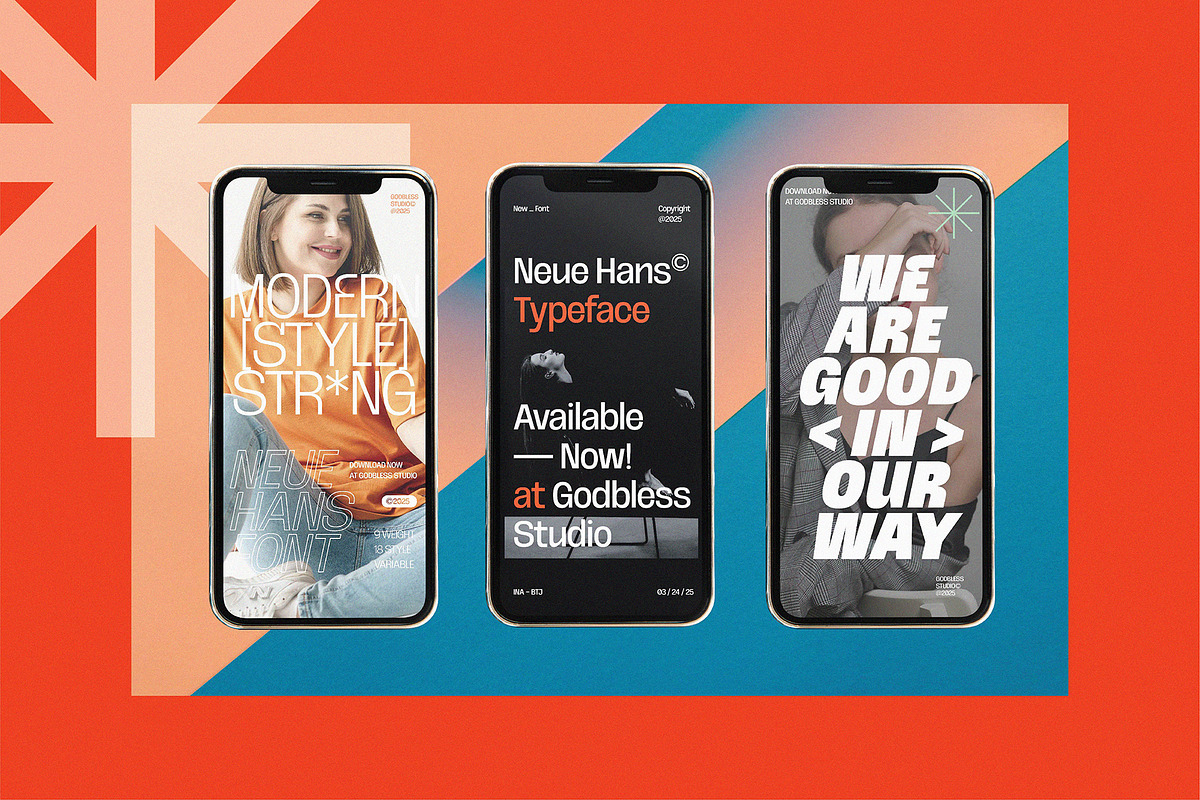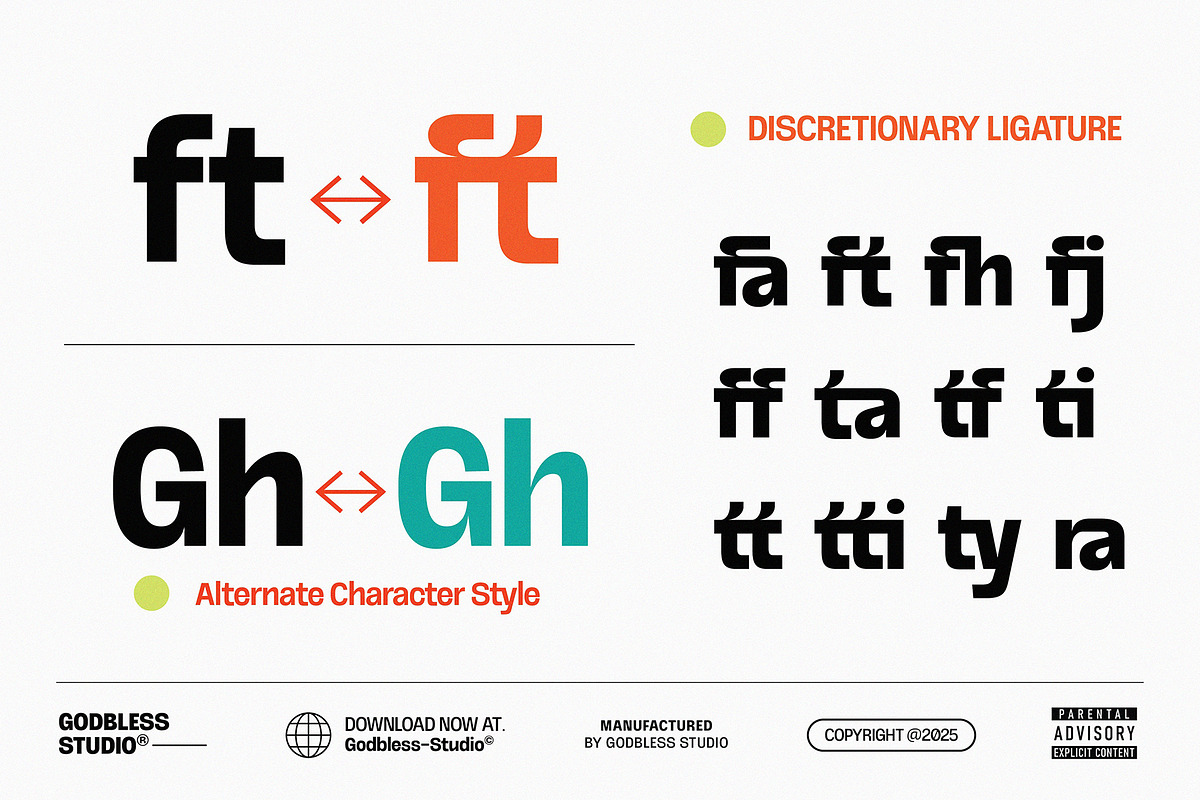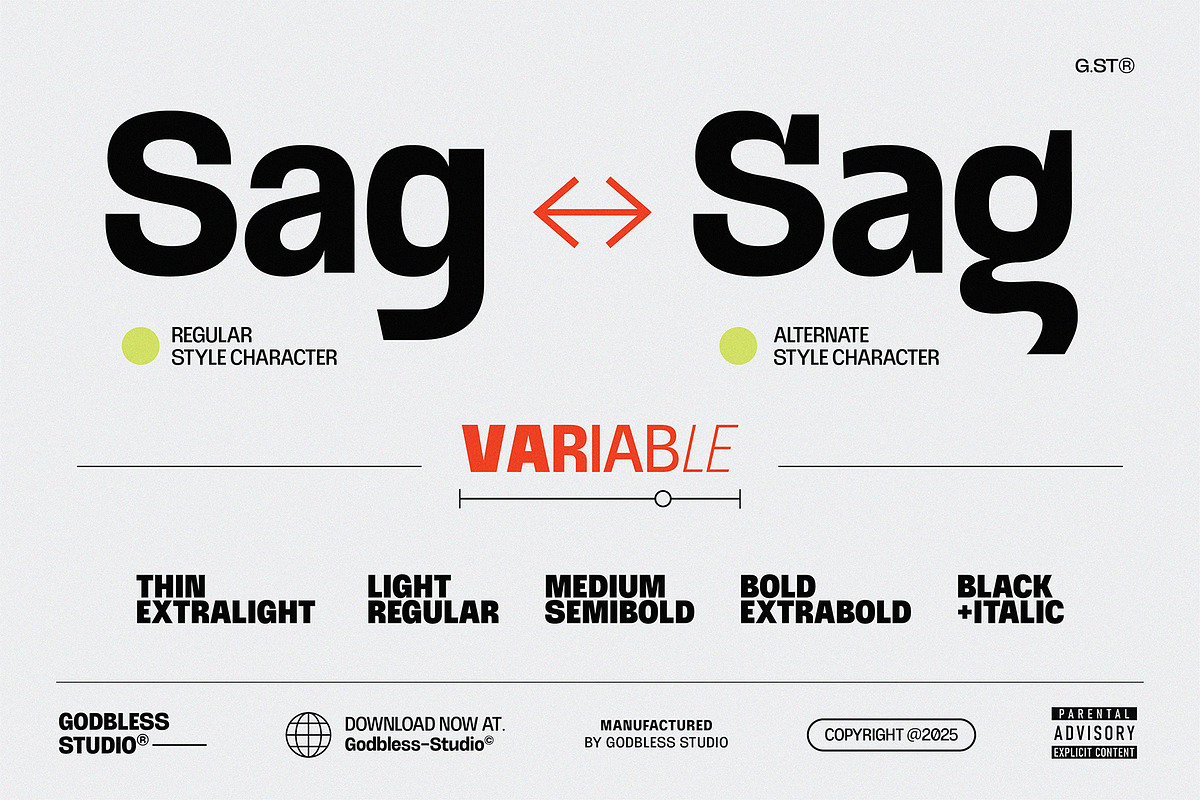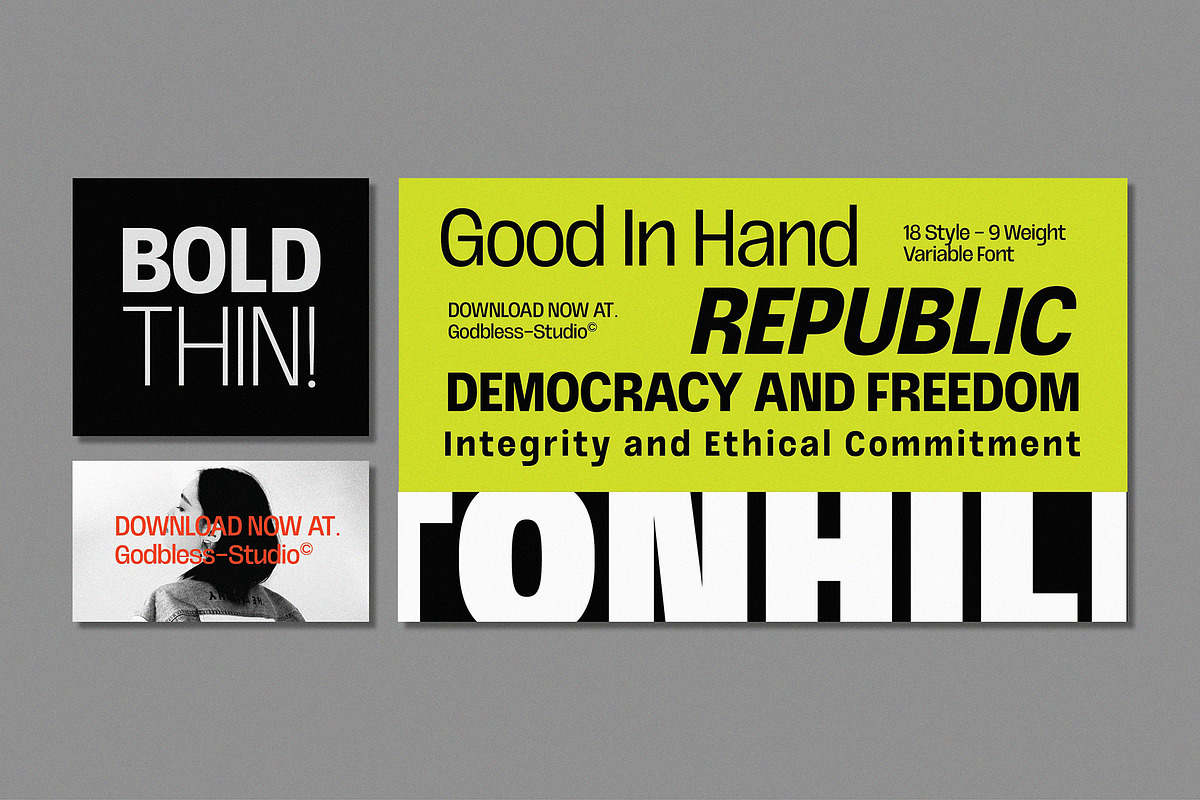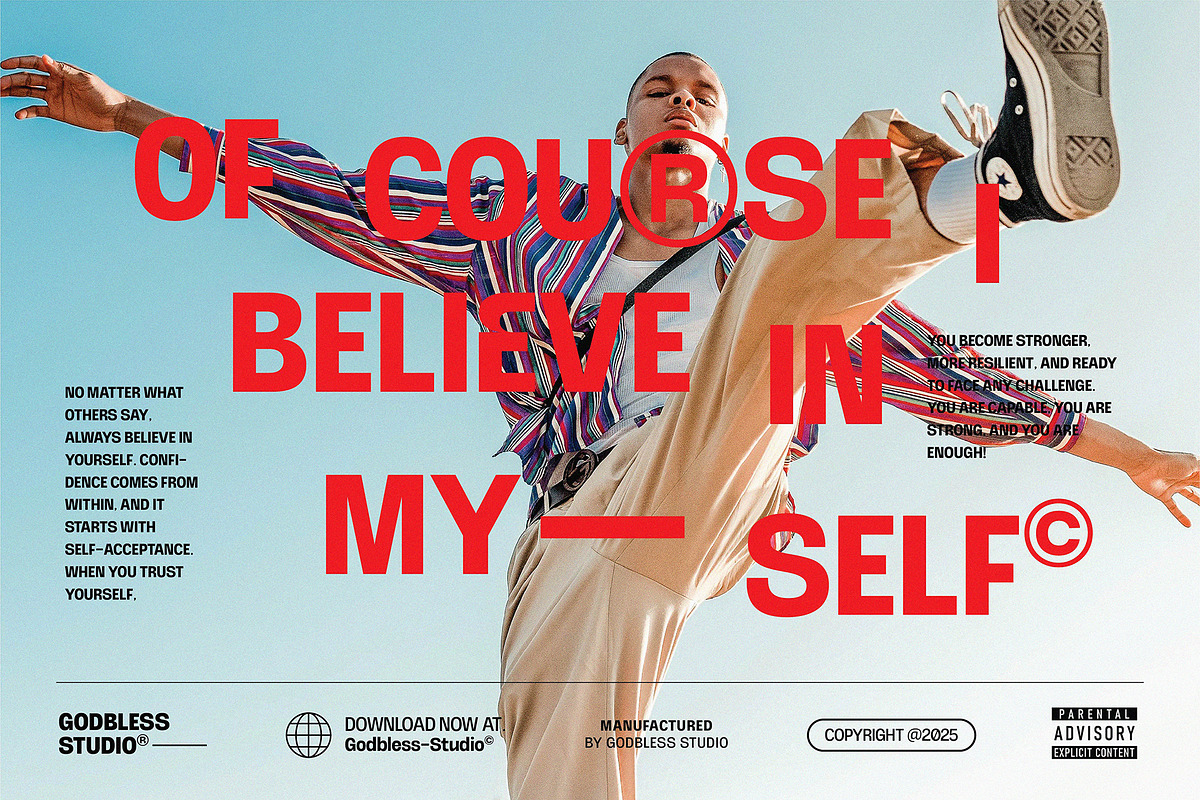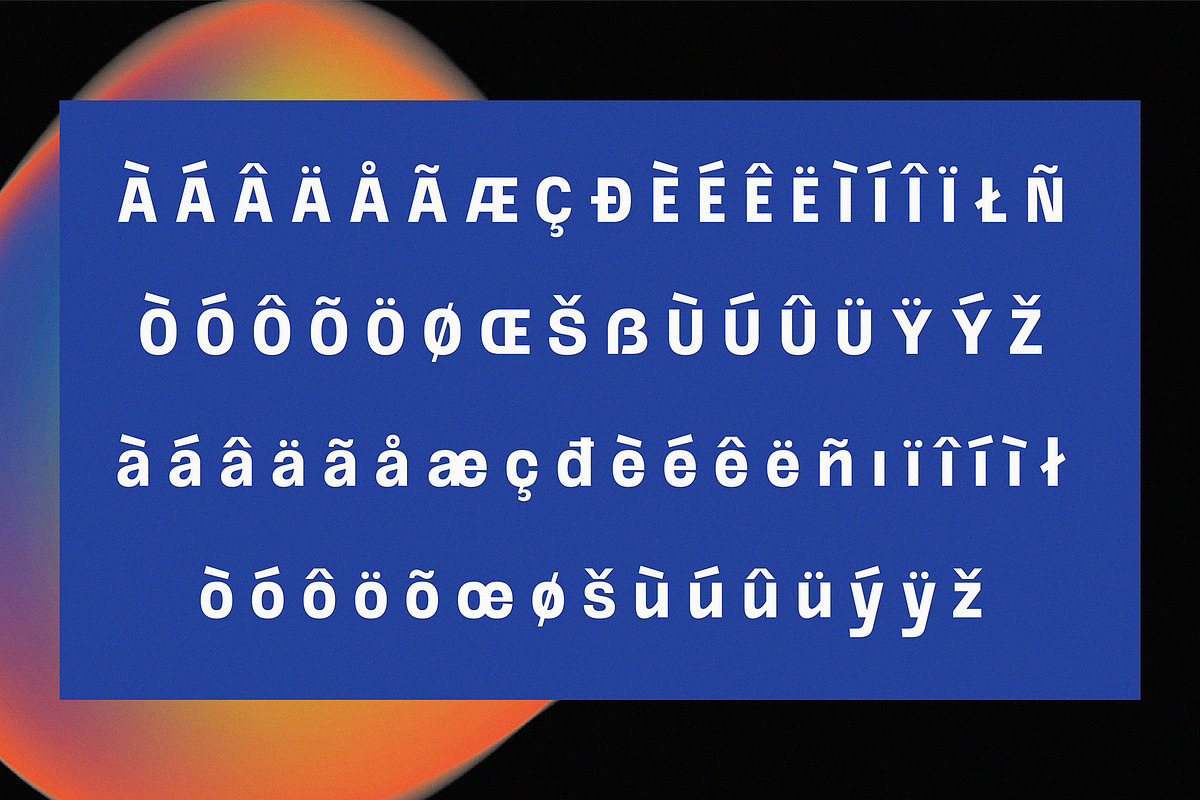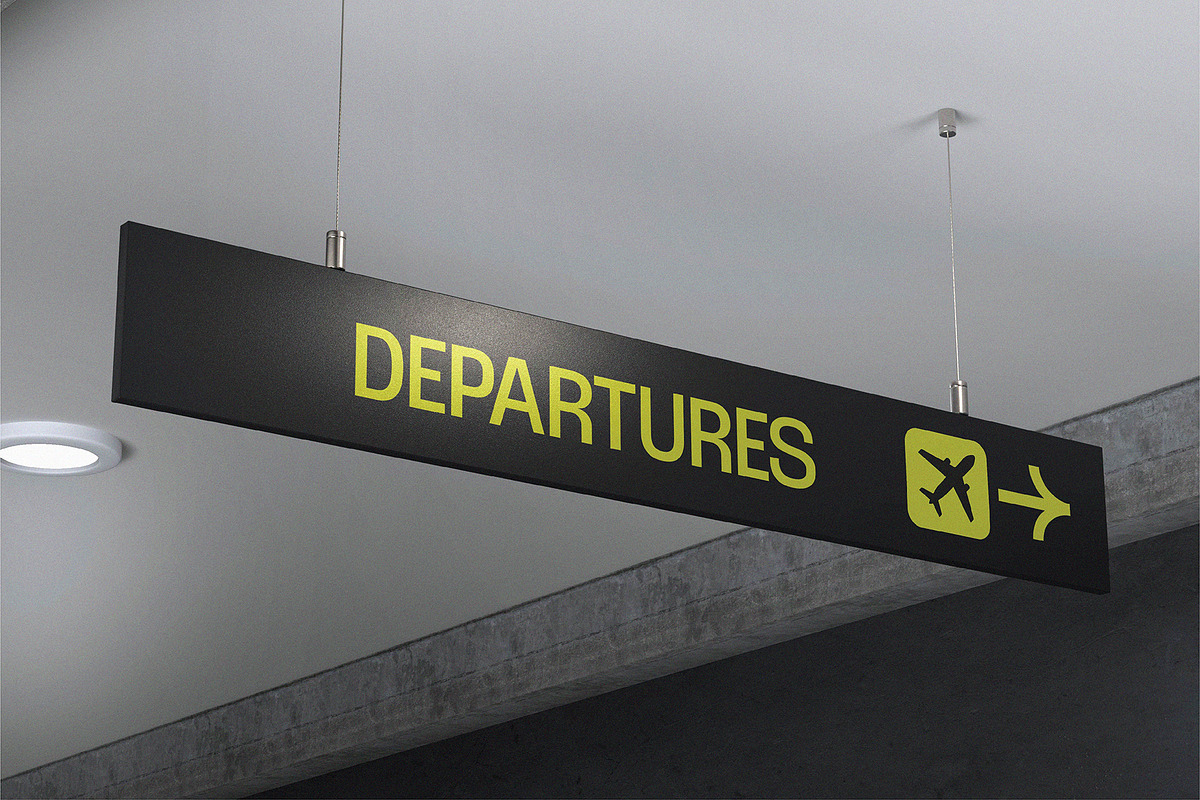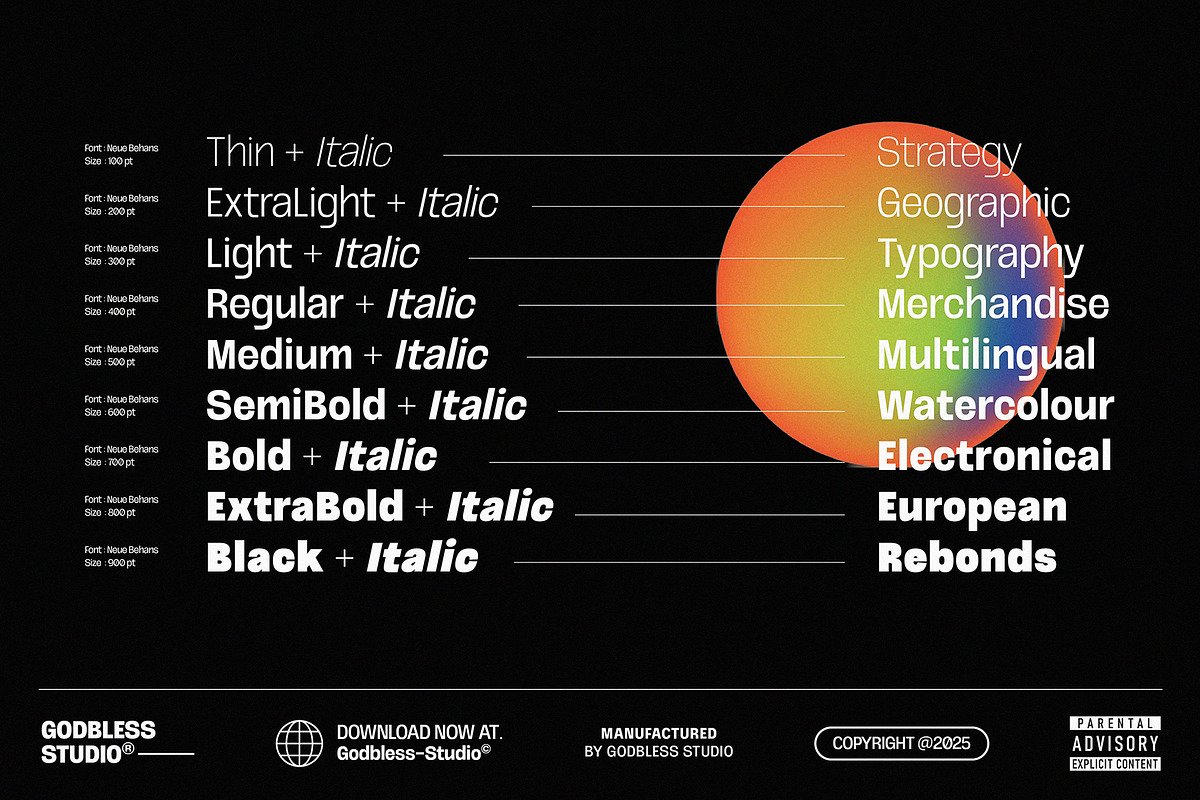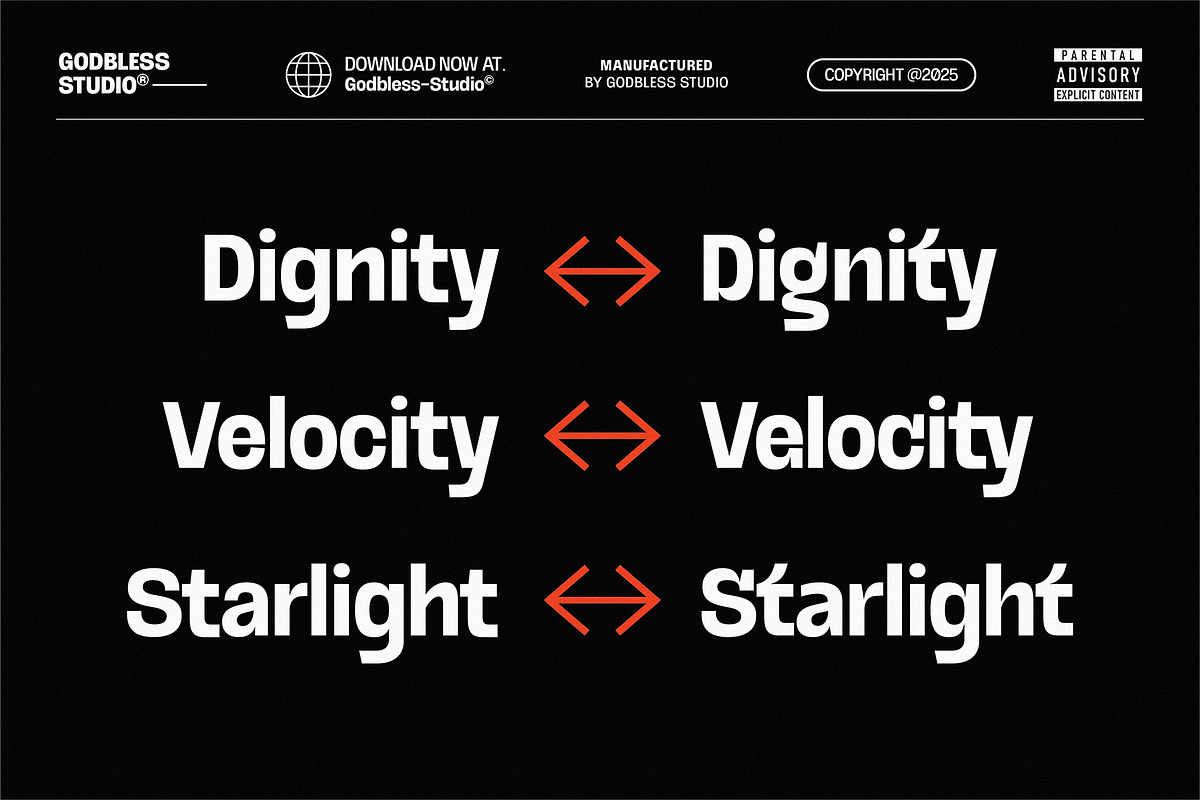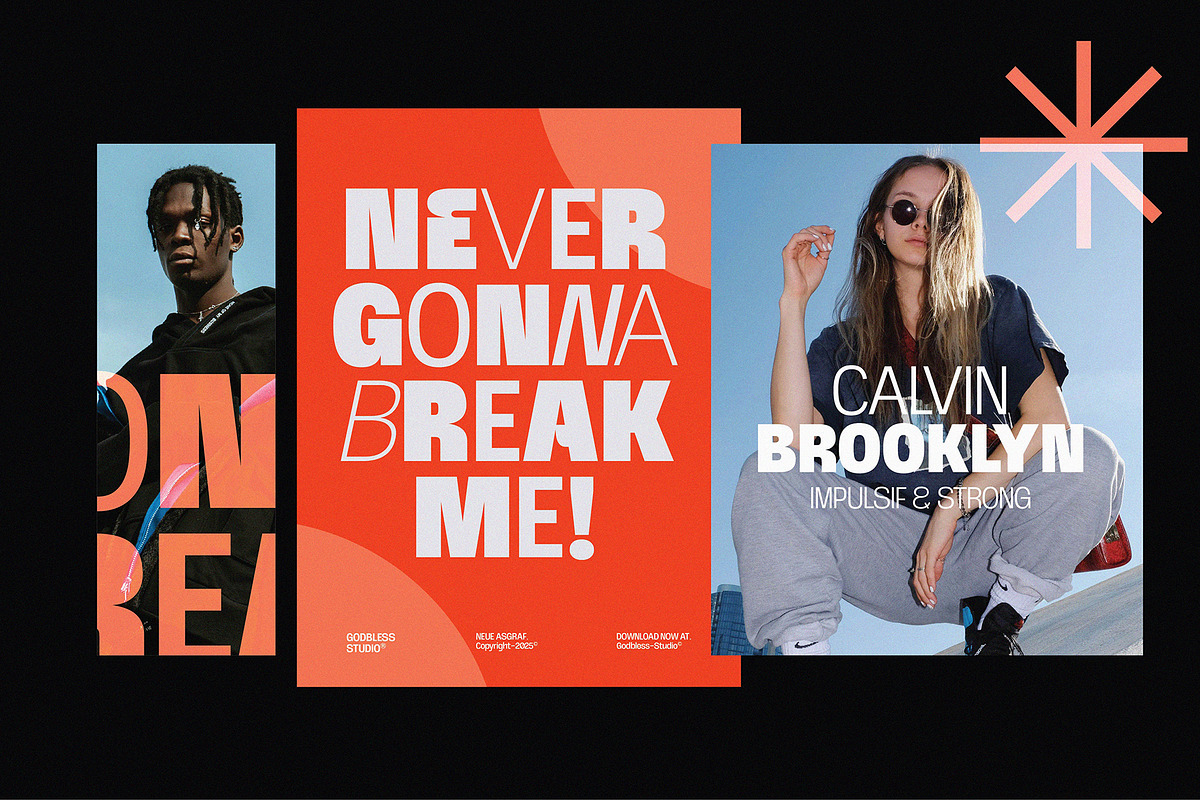
Neue Asgraf
Introducing Neue Asgraf – Where Experimental Meets Elegance
Say hello to Neue Asgraf, a modern sans-serif typeface that breaks boundaries while keeping things stylish. Designed to impress, this experimental display font blends clean geometry with striking alternate characters, offering a fresh and unique visual identity for any creative project.
Whether you're crafting bold headlines or sophisticated brand visuals, Neue Asgraf is your new go-to font—versatile, elegant, and unapologetically distinct.
✨ Why Choose Neue Asgraf?
- 9 Weights, 18 Styles – From delicate Thin to powerful Black, plus matching italics for all styles.
- Variable Font Included – Total control over weight and style in a single file. Smooth. Responsive. Future-proof.
- OpenType Features Galore – Including discretionary ligatures, stylistic alternates, fractions, case-sensitive forms, and more.
- Multilingual Support – Covering a wide range of Latin-based languages so your designs can speak globally.
- Alternate Characters – Experiment with alternate letterforms for added personality and flexibility.
💡 Perfect For:
- Poster Design
- Editorial & Magazine Layouts
- Bold Headlines
- Logos & Brand Identity
- Product Packaging
- Event Invitations & Cards
- Digital Interfaces
- Modern Advertising Campaigns
- Album Covers & Social Media Graphics
Whether you're a graphic designer, art director, or creative entrepreneur, Neue Asgraf empowers you to express bold ideas with precision and flair. This is more than just a typeface—it’s a creative tool that adapts to your vision.